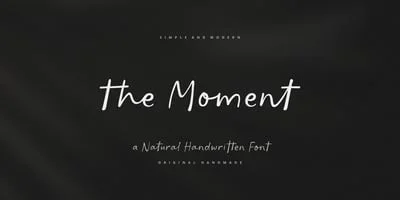
Moment Handwriting Font
Moment Handwriting Font is perfect for personal journal designs, intimate wedding invitations, handwritten note templates, memory book layouts, mindfulness applications, gratitude journals, personal diary projects, and authentic storytelling materials. This spontaneous typeface brings captured moments and handwritten authenticity to any design project celebrating the beauty of present-moment awareness and personal reflection.
What makes Moment Handwriting Font exciting is its beautiful capture of spontaneous expression combined with mindful presence that perfectly embodies the fleeting beauty of handwritten thoughts and the authentic emotion of moments captured in ink. The natural letterforms feature spontaneous flow and present-moment energy that create an unmistakably genuine appearance. Each character preserves the essence of living moments, making it ideal for brands that celebrate mindfulness, personal expression, and the precious beauty of capturing life's meaningful moments.
The Moment Handwriting Font family typically includes regular weight with complete uppercase and lowercase letters, numbers, punctuation marks, and personal expression symbols. Many versions feature additional spontaneous variations, natural connecting strokes, and mindful decorative elements that enhance the authentic aesthetic and provide creative flexibility for personal and mindfulness design applications.
Whether you're developing mindfulness brands or creating personal reflection materials, Moment Handwriting Font offers unlimited potential for authentic expression projects. This genuine typography choice transforms digital text into personal moments that resonate with audiences seeking authentic connection and mindful living. The font's spontaneous construction ensures exceptional emotional appeal across various personal applications while maintaining its distinctive moment-capturing character that makes every design project feel like a precious page from someone's personal journal where thoughts flow freely and moments are preserved with loving care.